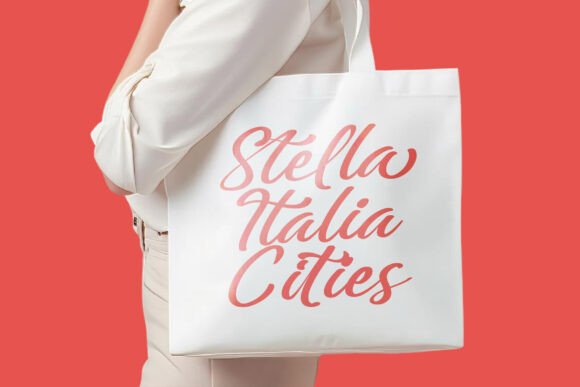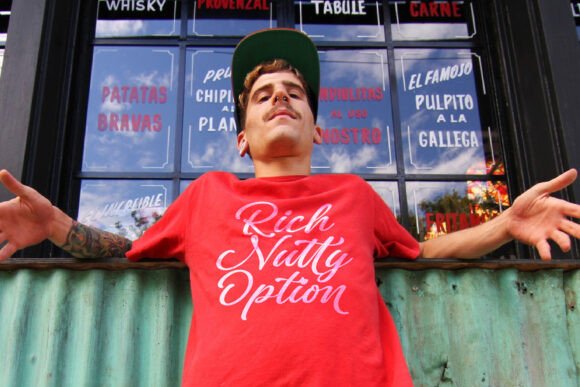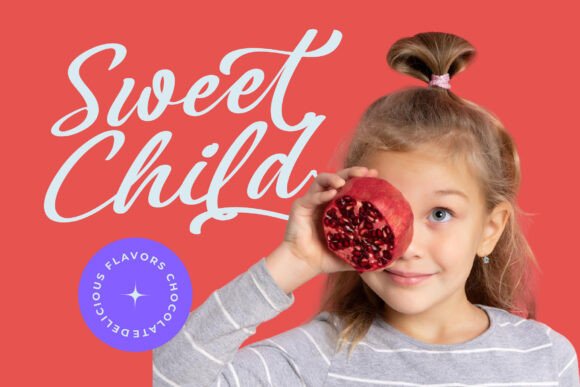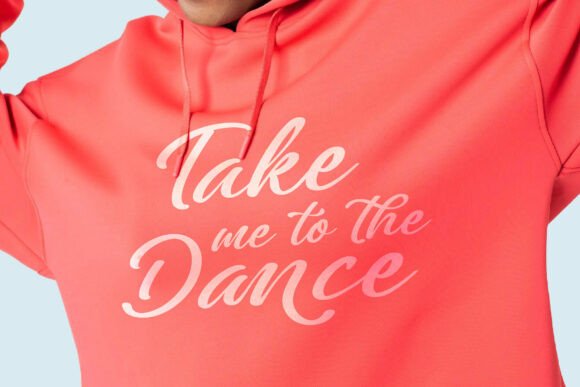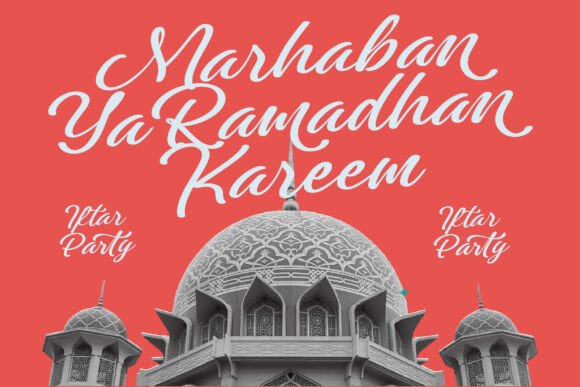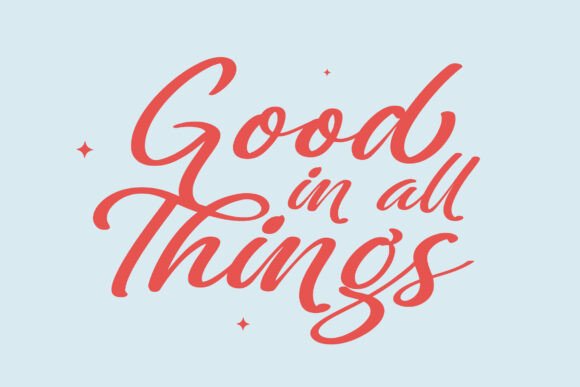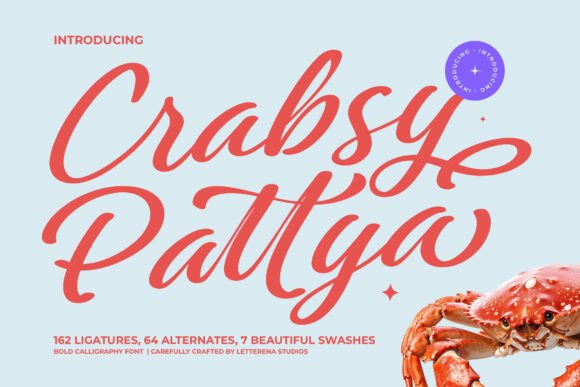
Crabsy Pattya Font: Elevate Your Designs with Luxury Script Style
In the world of typography, a font can make or break a design. For those seeking to add a touch of luxury and elegance to their projects, Crabsy Pattya – Bold Calligraphy Font from Letterena is an exceptional choice. This stunning script font is perfect for designers and crafters looking to create high-end visuals that exude sophistication and style.
What is Crabsy Pattya Font?
Crabsy Pattya is a bold calligraphy font that embodies the essence of luxury script typography. Crafted by Letterena, this font is designed to bring a sense of opulence and refinement to any project. Its elegant strokes, precise lettering, and beautiful ligatures make it an ideal choice for those seeking to create visually stunning designs.
Key Features of Crabsy Pattya Font
- Luxury Script Style: Crabsy Pattya boasts a sophisticated script style, perfect for creating high-end designs that demand attention.
- Bold Calligraphy: The font’s bold calligraphy style adds a sense of drama and elegance to any project.
- Elegant Strokes: Crabsy Pattya’s strokes are meticulously crafted to create a sense of fluidity and refinement.
- Precise Lettering: Each letter is carefully designed to ensure precision and consistency, making it perfect for large-scale designs.
- Beautiful Ligatures: The font features beautiful ligatures that add a touch of sophistication to any text.
Use Cases for Crabsy Pattya Font
Crabsy Pattya is an incredibly versatile font, suitable for a wide range of projects, including:
- Logos: Create a lasting impression with a luxurious logo that showcases your brand’s personality.
- Branding Projects: Establish a high-end brand identity with Crabsy Pattya’s elegant script style.
- Homeware Designs: Add a touch of sophistication to your homeware designs, from stationery to packaging.
- Product Packaging: Elevate your product packaging with a luxurious font that exudes quality and refinement.
- Mugs: Create stunning mug designs that make perfect gifts or promotional items.
- Quotes: Add a touch of elegance to inspirational quotes, making them perfect for sharing on social media or printing on merchandise.
- Posters: Create eye-catching posters that demand attention with Crabsy Pattya’s bold calligraphy style.
- Shopping Bags: Design luxurious shopping bags that reflect your brand’s high-end personality.
- T-Shirts: Create stunning t-shirt designs that make a statement with Crabsy Pattya’s elegant script style.
- Book Covers: Design eye-catching book covers that showcase your author’s style and sophistication.
- Name Cards: Create elegant name cards that make perfect additions to any event or meeting.
- Invitation Cards: Design luxurious invitation cards that set the tone for any special event.
- Greeting Cards: Add a touch of elegance to your greeting cards, making them perfect for special occasions.
- Labels: Create stunning labels that reflect your brand’s high-end personality.
- Photography: Use Crabsy Pattya as a watermark or overlay to add a touch of sophistication to your photographs.
- Special Events: Create stunning event branding, from invitations to signage, with Crabsy Pattya’s luxurious script style.
Why Choose Crabsy Pattya Font?
Crabsy Pattya offers a unique combination of elegance, sophistication, and versatility, making it an excellent choice for designers and crafters. Here are just a few reasons why you should consider using Crabsy Pattya in your next project:
- Unique Design: Crabsy Pattya’s bold calligraphy style and elegant strokes make it a standout font that will elevate your designs.
- High-Quality Typography: The font’s precise lettering and beautiful ligatures ensure that your designs look professional and polished.
- Versatility: Crabsy Pattya is suitable for a wide range of projects, from logos and branding to packaging and merchandise.
Crabsy Pattya – Bold Calligraphy Font from Letterena is an exceptional choice for designers and crafters seeking to add a touch of luxury and elegance to their projects. With its unique design, high-quality typography, versatility, and ease of use, Crabsy Pattya is the perfect font for creating stunning visuals that exude sophistication and style. Whether you’re working on a logo, branding project, or merchandise, Crabsy Pattya is sure to elevate your designs and leave a lasting impression.